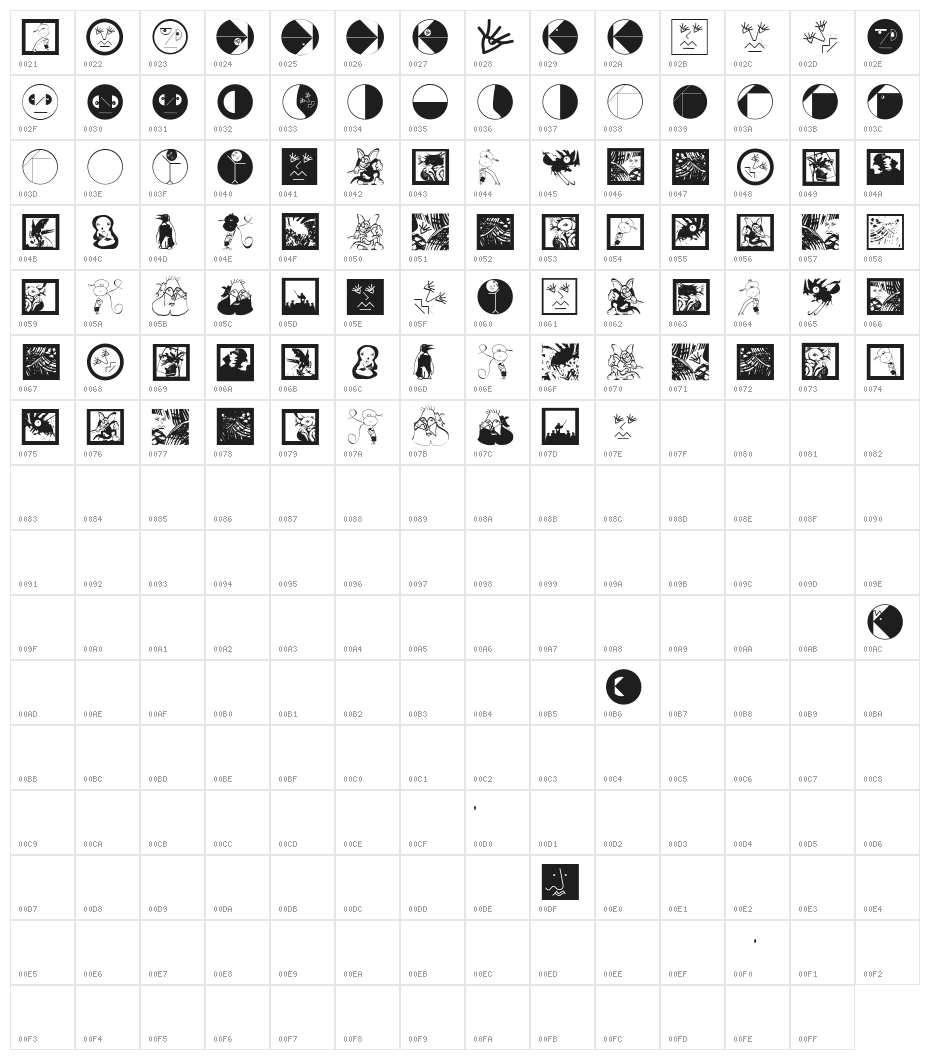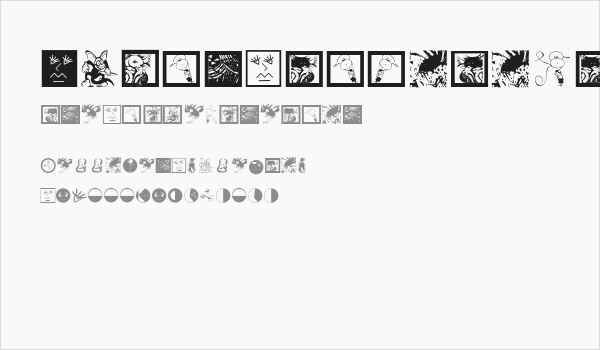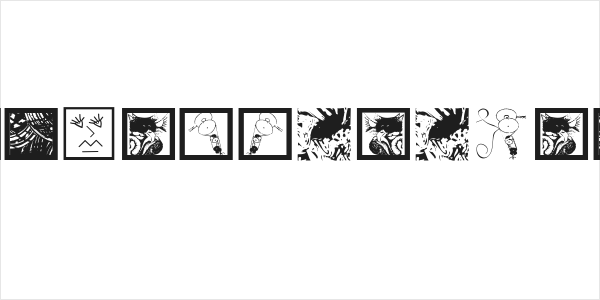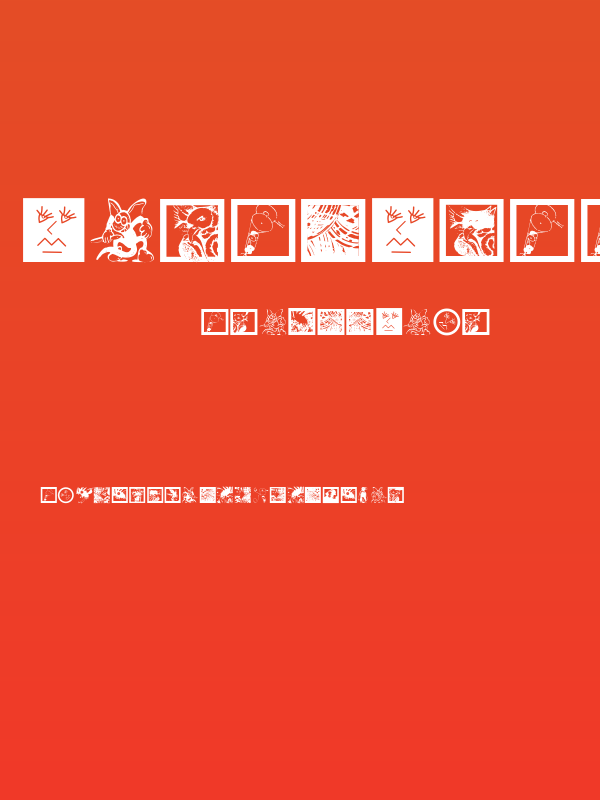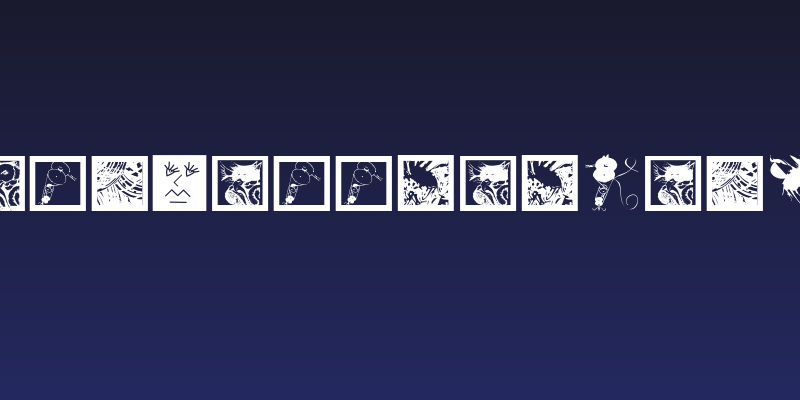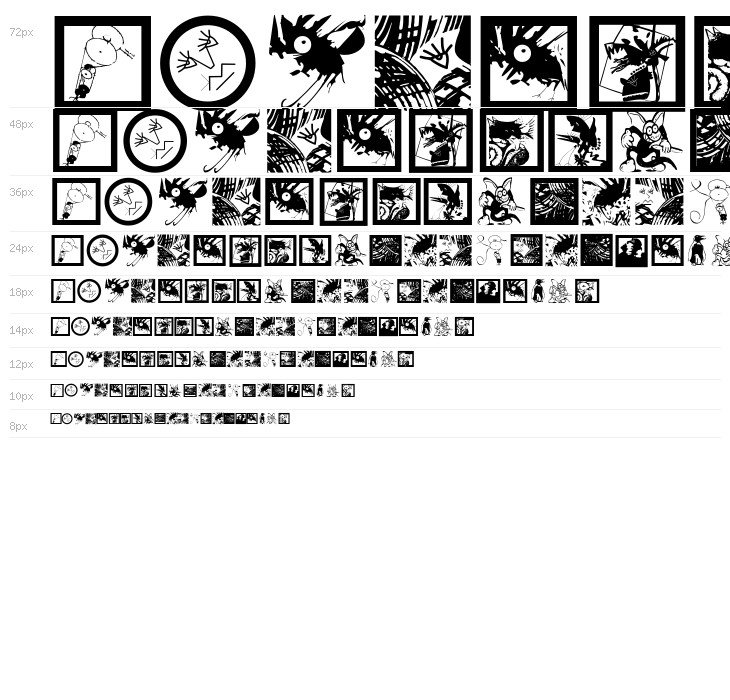
AbstractToConcrete Font
| Gesamtstil | Decorative, Abstract, Playful |
| Anwendungsfall | Logos, Posters, Art projects, Headlines |
| Vorgeschlagene Projekte | Children’s books, creative posters, album covers, art projects, branding for playful or artistic products. |